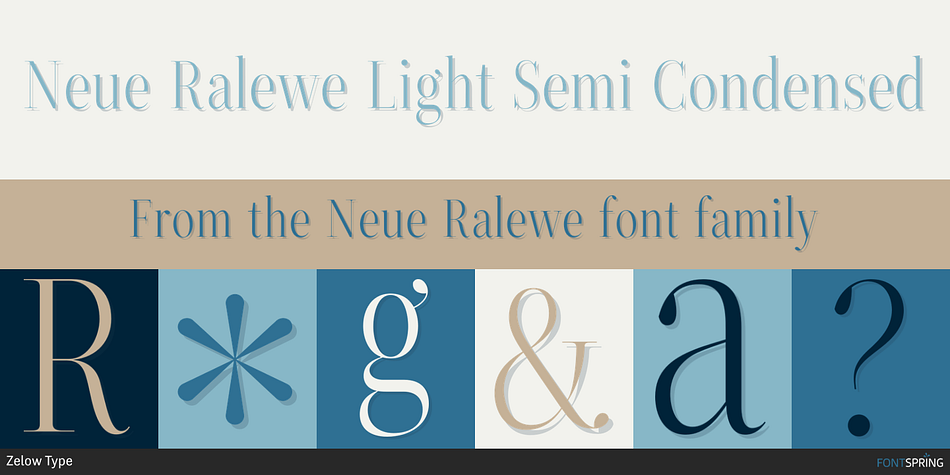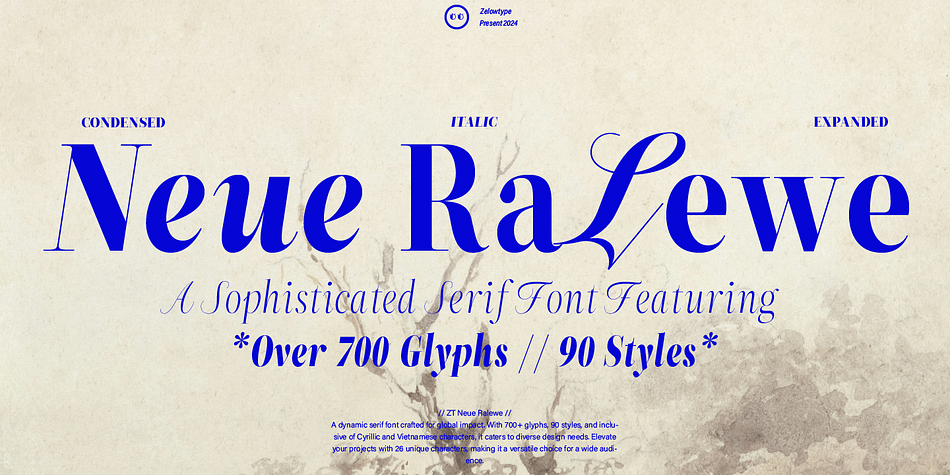
Neue Ralewe Light Semi Condensed
Designed by Khairun Nas, Neue Ralewe is a display serif and serif font family. This typeface has ninety styles and was published by Zelow Type.
Step into the realm of design opulence with ZT Neue Ralewe – a serif font that doesn’t just grace your creations; it transforms them into masterpieces. This font is more than a collection of characters; it’s an embodiment of:
- 90 Styles: From the delicate dance of Thin to the commanding presence of Black.
- 26 Unique Characters, each whispering tales of individuality.
- 700+ Glyphs, a kaleidoscope of expressive possibilities.
- Condensed to Expanded Variations, offering a canvas for dynamic design poetry.
- Timeless Elegance that transcends trends, crafting a legacy of sophistication.
- Global Language Support, a harmonious embrace, inclusive of Basic Cyrillic.
- Versatility for both Headlines and Body Text, where every word becomes a stanza.
Deliberately spaced for a choreography of sophistication, ZT Neue Ralewe is where style and readability engage in a dance of visual poetry. Craft compelling headlines that sing with allure or refine body text with the grace of a well-composed verse.